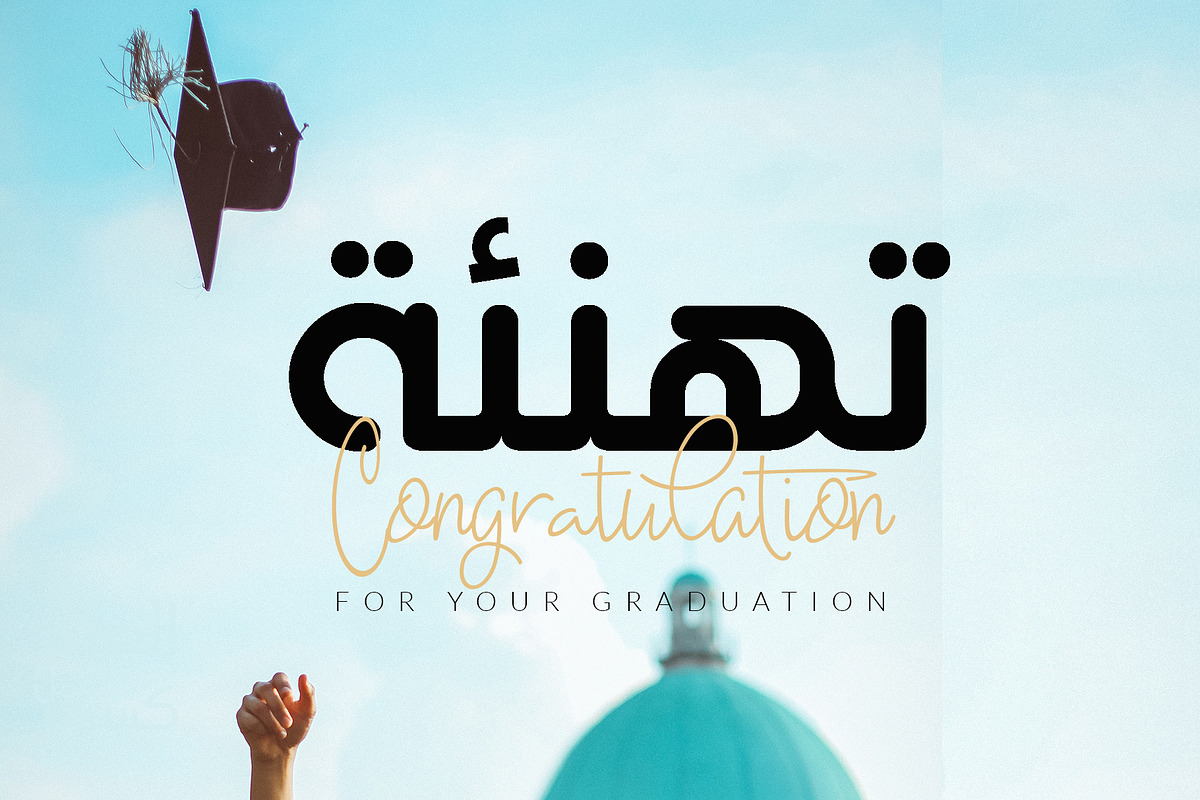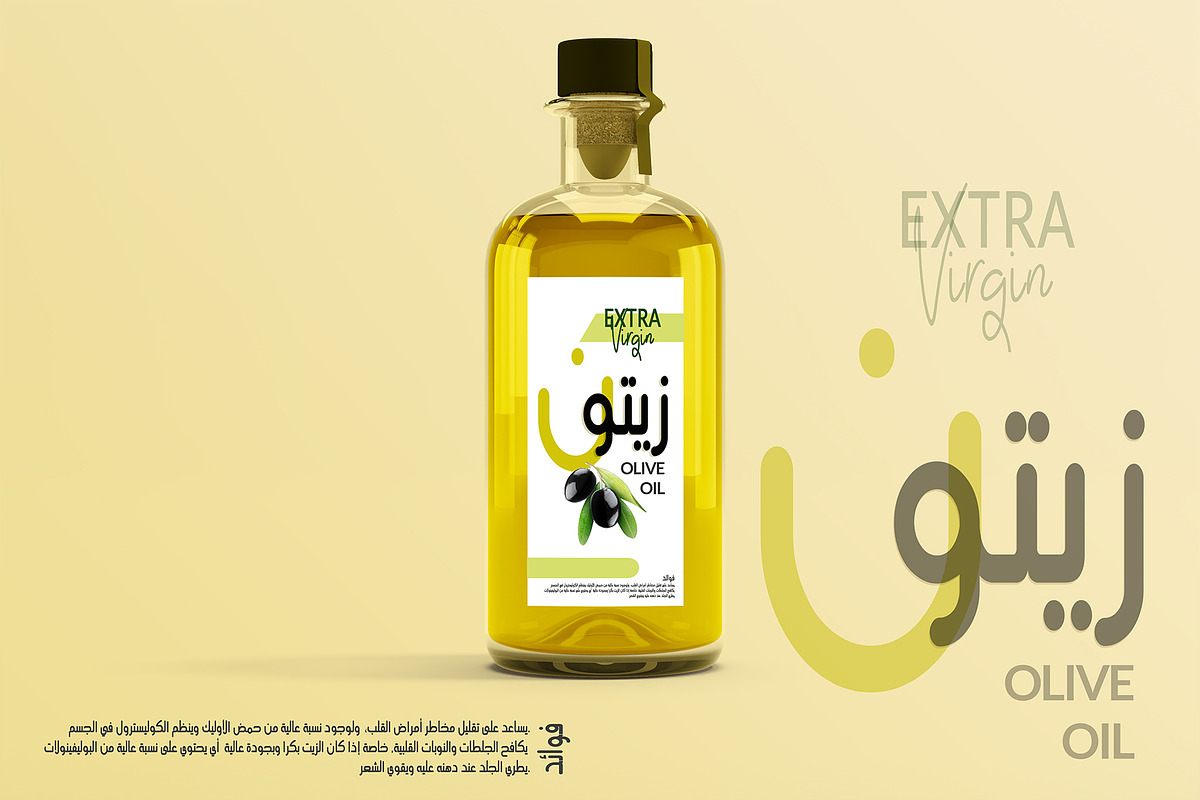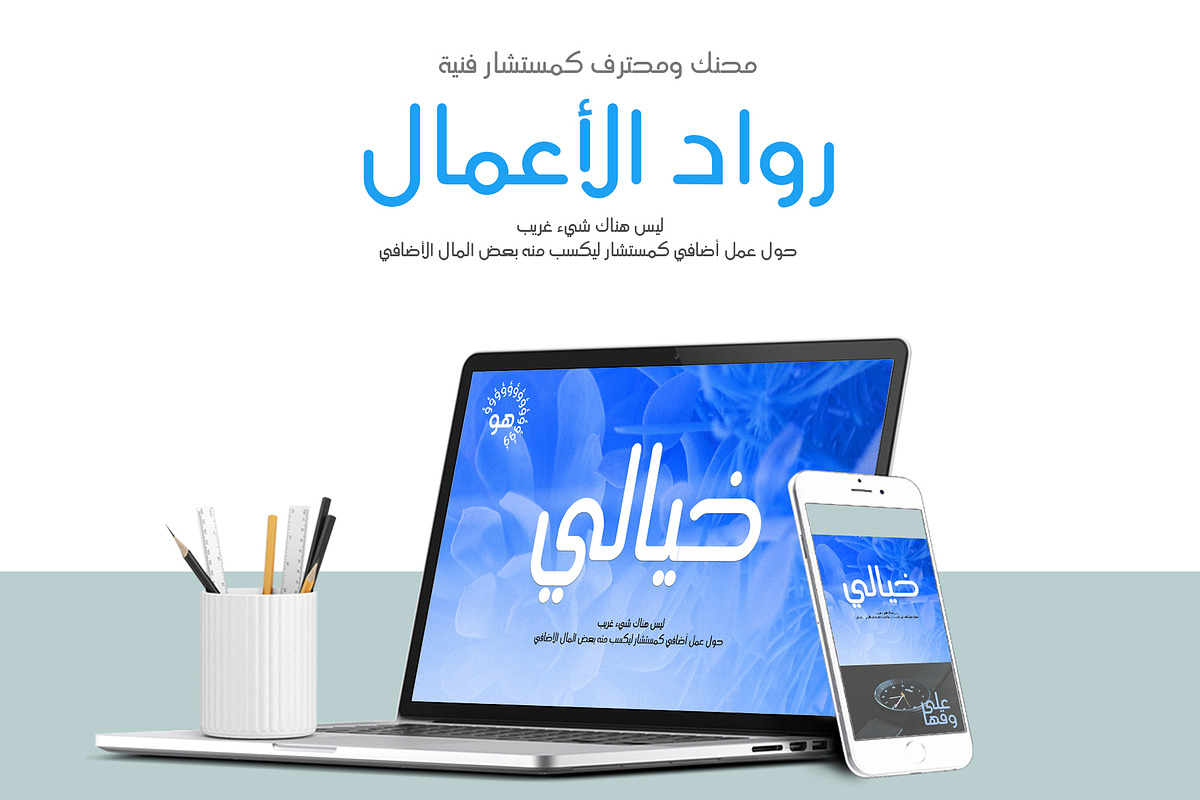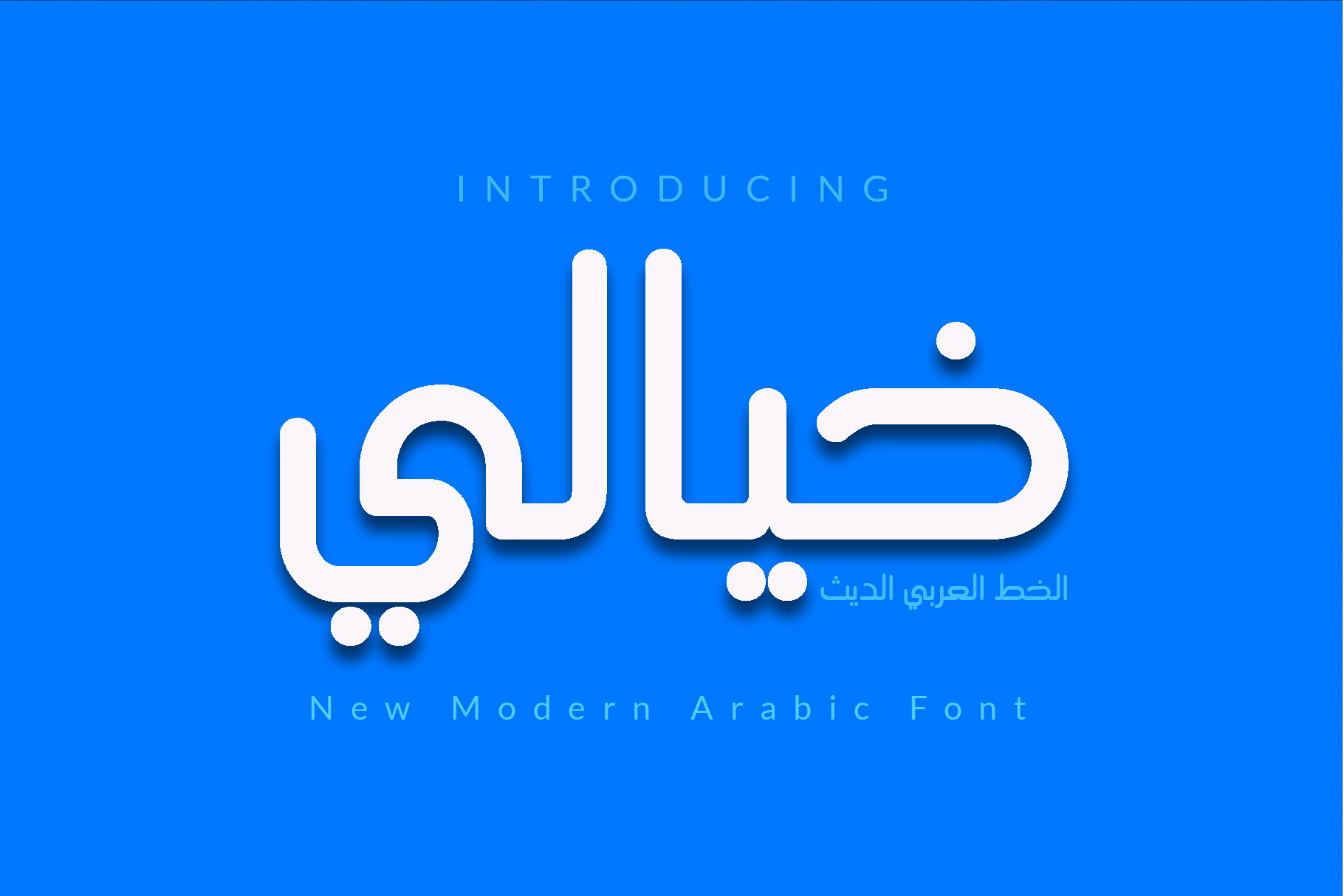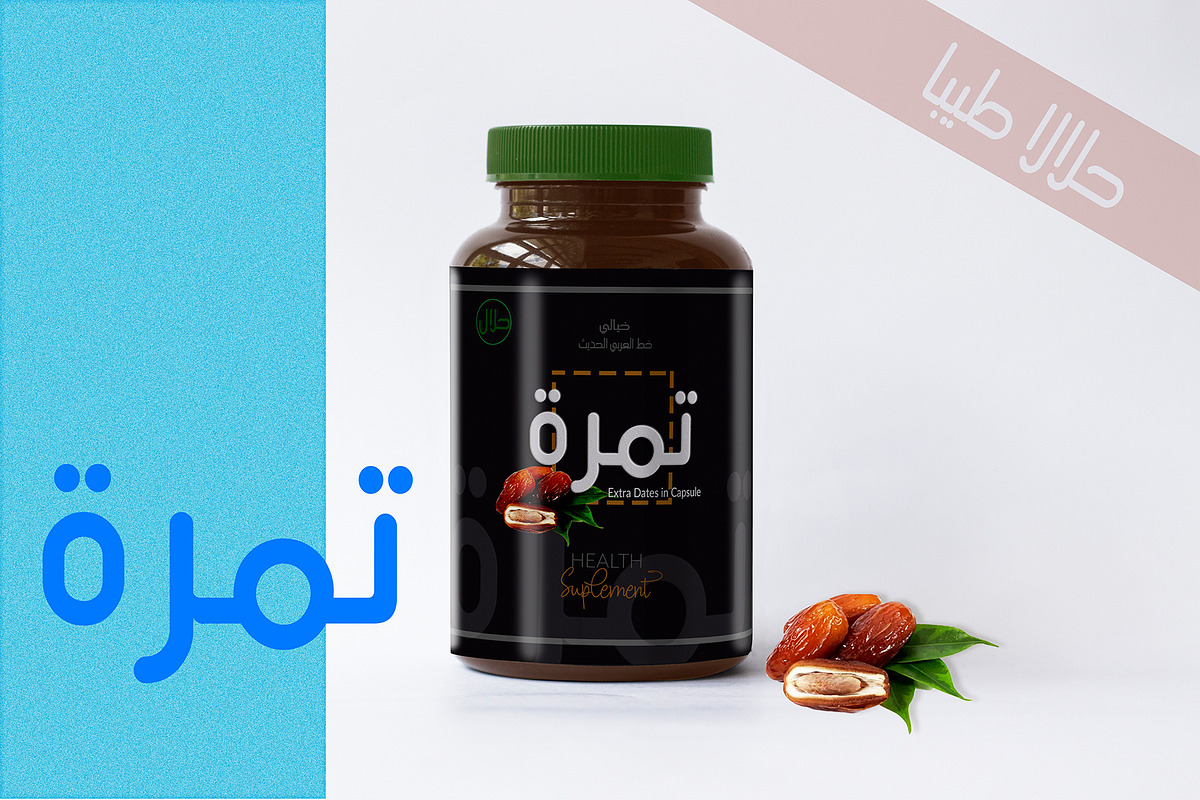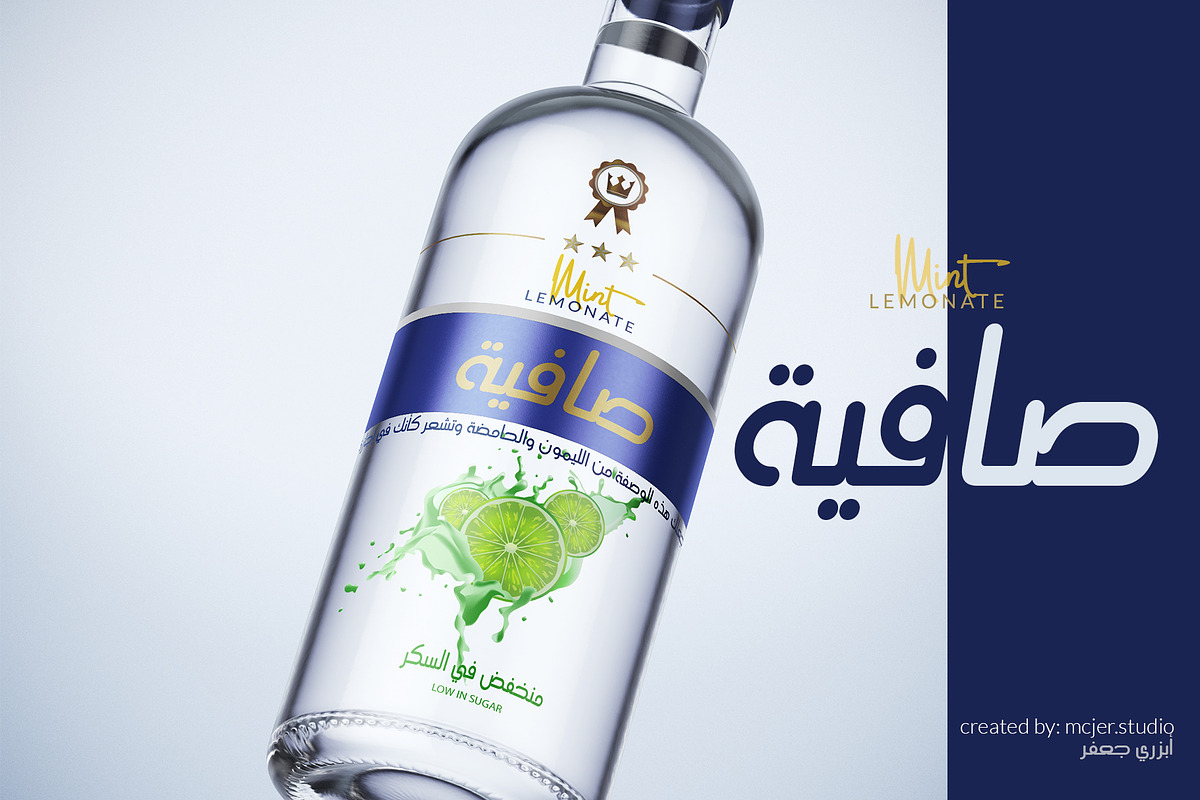
Khayali - Arabic Font
Khayali is Modern Arabic Font with Monoline Style. I call it by Khayali the meaning My Dream because I Dream for created Arabic Font. and I start with this font. Khayali is combinations from Khat Khoofi and Khat Naskh styles. from a combination of both I hope Khayali feels something new in your desingn.
Opentype Features:
Standar Characters (Righ to Left)
Standar Ligatures
Numeral
Sign Arabic Type (Fatha adn fathatain, kasra anda kasratain, damma and dammatain, sukun,tasydid/syadda.